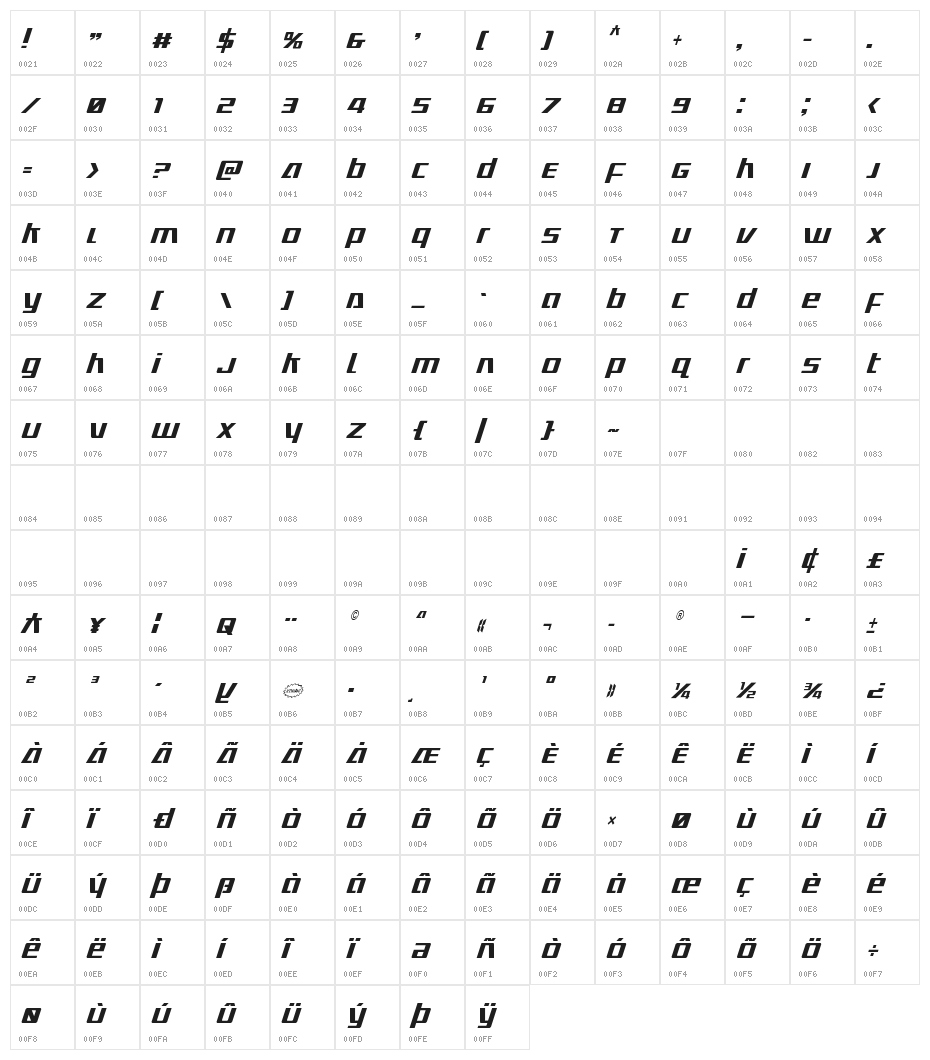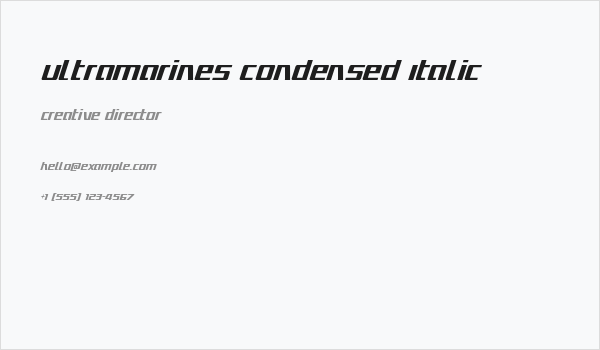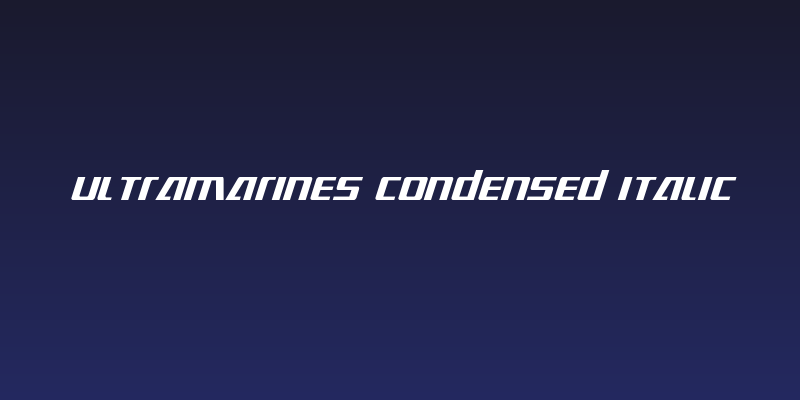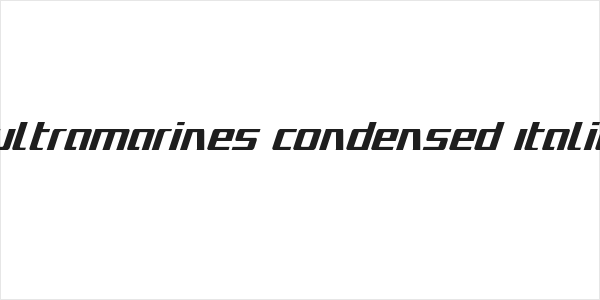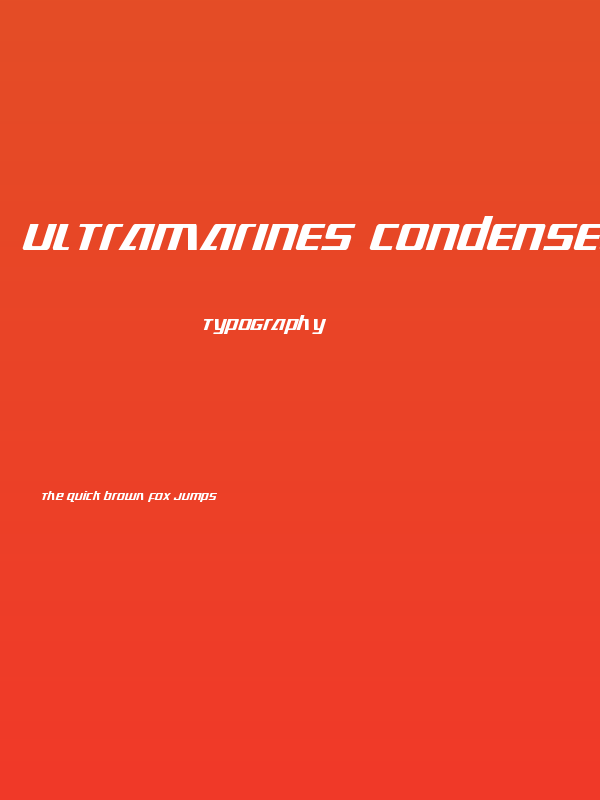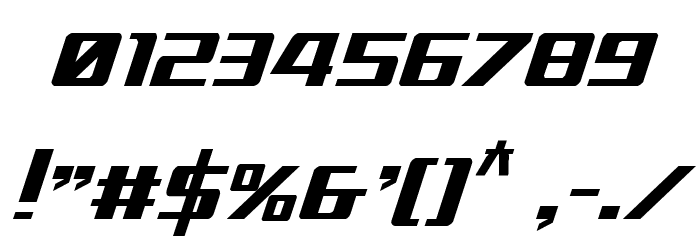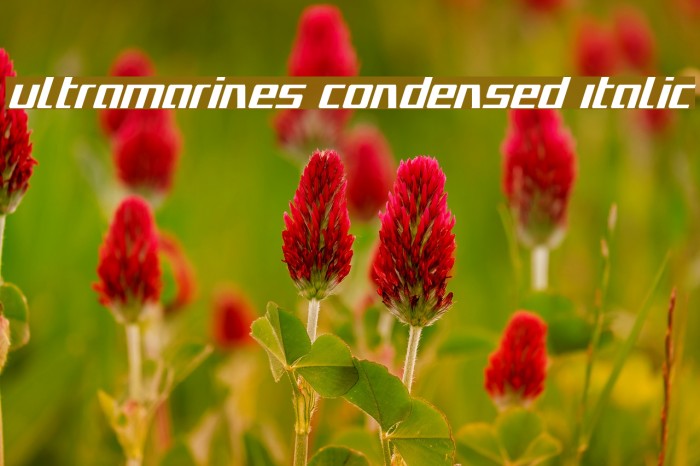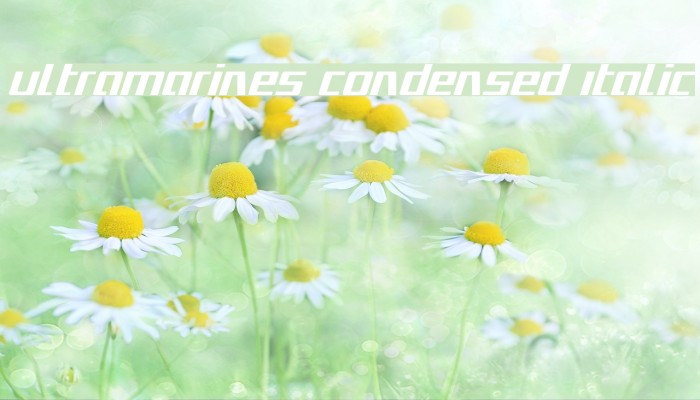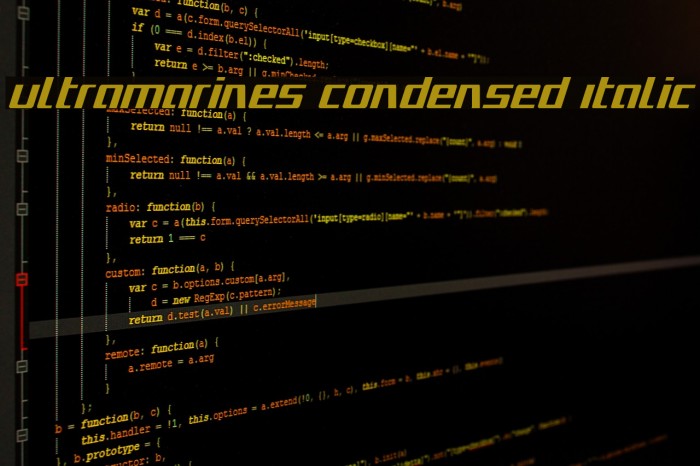
Ultramarines Condensed Italic Font
Ultramarines Condensed Italic Description
This font features a dynamic and modern design with a condensed and italicized style. The characters are sleek and angular, giving a sense of movement and speed. The strokes are consistent in weight, providing a uniform appearance across all characters. The font maintains a futuristic and technical aesthetic, suitable for projects that require a bold and contemporary look. The spacing between characters is tight, enhancing its compact and efficient appearance. This font is ideal for use in technology-related branding, sports team logos, or any project that demands a cutting-edge and energetic feel.
| Use Case | Logos, Headlines |
| Proposed Projects | Ideal for technology branding, sports logos, and dynamic advertising. |